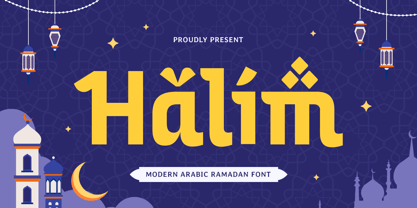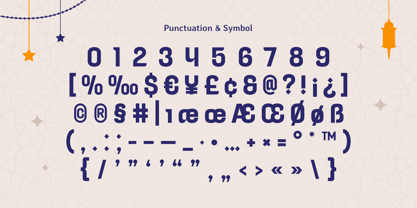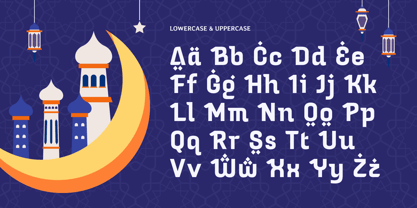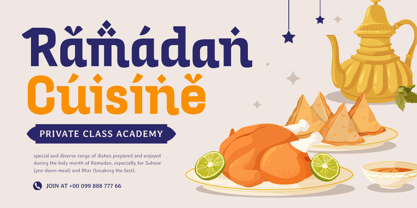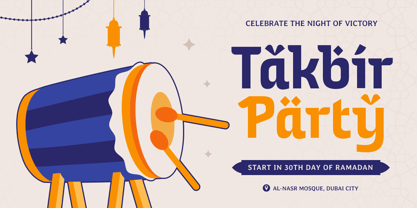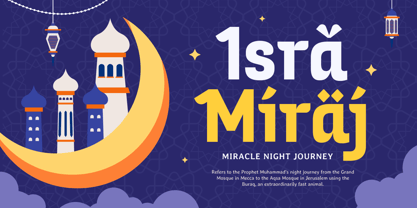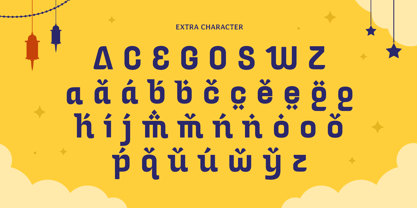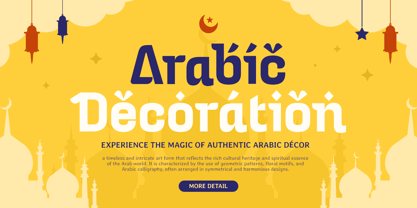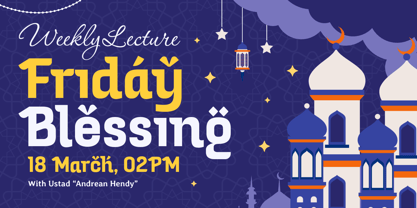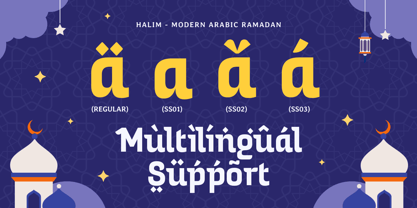
Halim
by Sensatype Studio
The Halim Font Family was designed by Zamroni Hamzah and published by Sensatype Studio. Halim contains 1 styles. More about this family
Halim - Modern Arabic Ramadan Font
Halim is a modern Arabic font designed to bring sophistication and cultural authenticity to your Ramadan-themed projects. Perfect for greeting cards, banners, social media graphics, and branding, Halim’s clean yet expressive lines create a harmonious blend of modernity and tradition.
Inspired by the fluidity of Arabic calligraphy and the essence of Ramadan festivities, Halim adds a touch of elegance to any design. Whether you’re creating for digital platforms or print media, this font ensures your work stands out with timeless appeal.
Enhance your creative toolkit with Halim, a font crafted to inspire Ramadan creativity with beauty and versatility.
Halim Arabic Ramadan Font Features:
• Clean and Modern Arabic Typography
• Includes Punctuation, Numbers, and Symbols
• Uppercase and Lowercase Characters
• Opentype Features for advanced design options
Multilingual Support for:
Afrikaans, Albanian, Asu, Basque, Bemba, Bena, Breton, Chiga, Cornish, Dutch, English, Estonian, Filipino, Finnish, Friulian, Galician, German, Gusii, Indonesian, Irish, Italian, Kabuverdianu, Kalenjin, Kinyarwanda, Luo, Luxembourgish, Luyia, Machame, Makhuwa-Meetto, Makonde, Malagasy, Manx, Morisyen, North Ndebele, Nyankole, Oromo, Portuguese, Quechua, Romansh, Rombo, Rundi, Rwa, Samburu, Sango, Sangu, Scottish Gaelic, Sena, Shambala, Shona, Soga, Somali, Spanish, Swahili, Swedish, Swiss.
Designers: Zamroni Hamzah
Foundry: Sensatype Studio